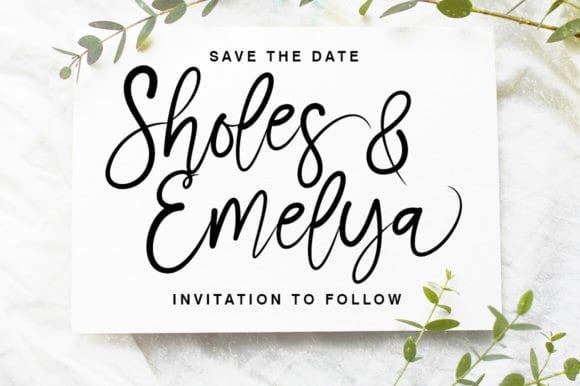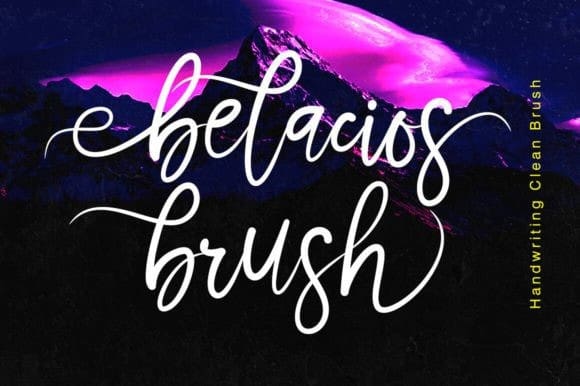
Belacios Brush Font
Belacios Brush Font, is a dazzling script font that exudes elegance and charm. With its fluid strokes and intricate details, it captivates the eye and adds a touch of sophistication to any design project. Perfect for invitations, branding, and headlines, Belacios Brush brings a sense of luxury and style to your creations.